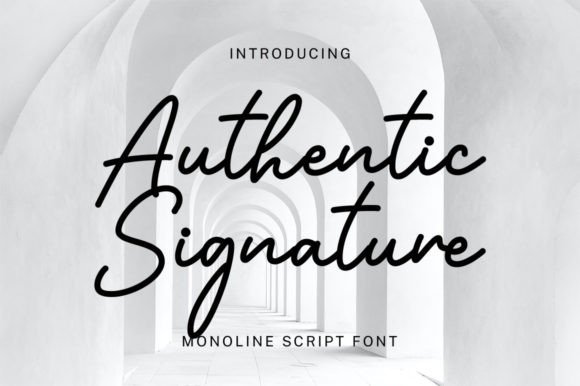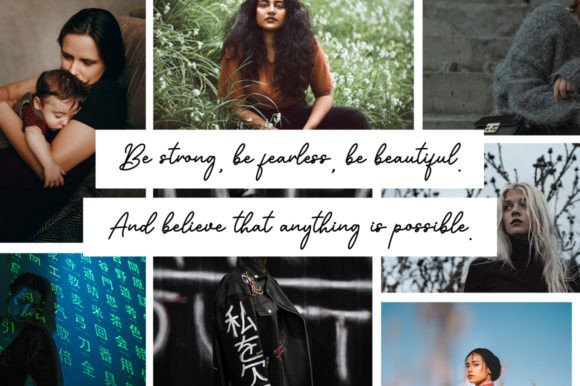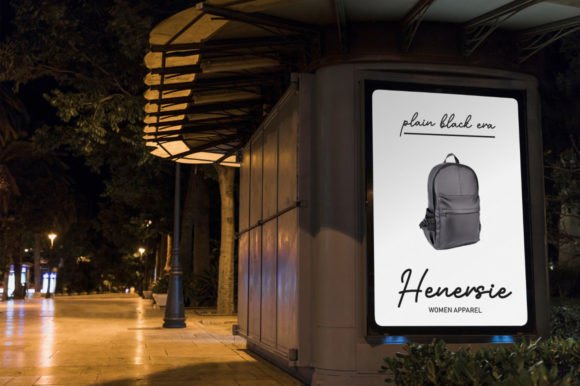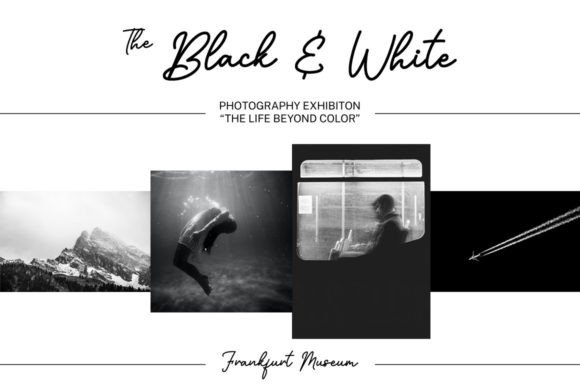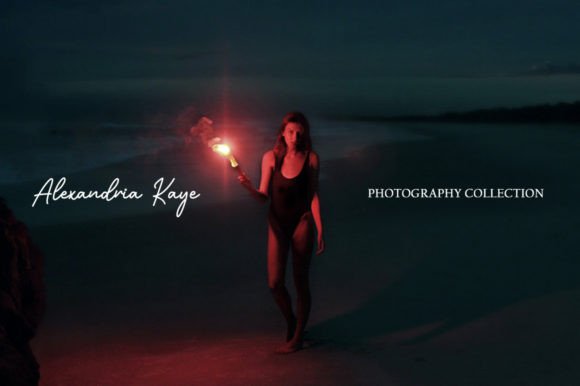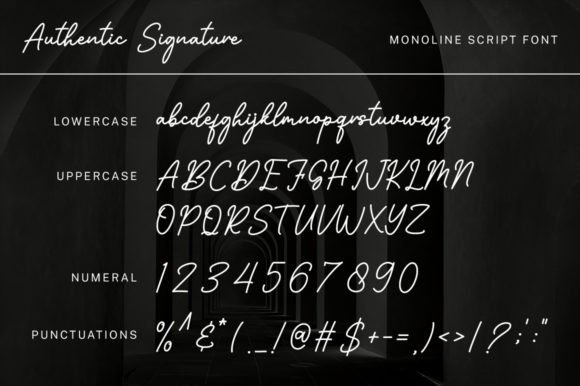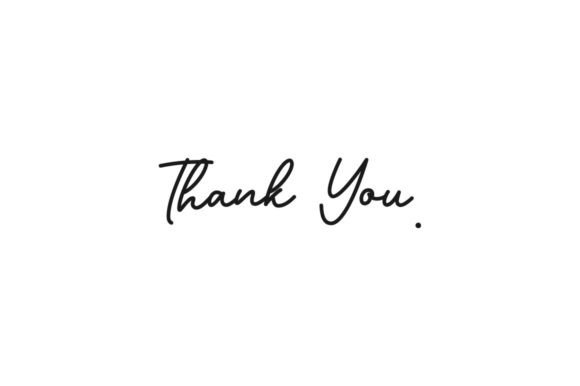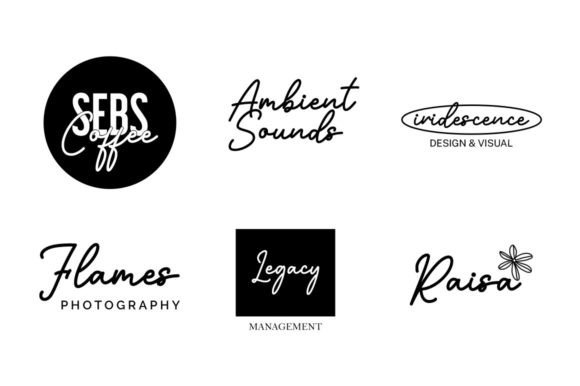
Authentic Signature Font
About Authentic Signature Font
“Authentic Signature” is an elegant handwritten font that brings a sense of grace and charm to your creative projects. With its dainty and joyful style, this font is an ideal choice for writing wedding invitations, crafting heartfelt cards, or adding a romantic and personalized touch to any design that calls for it.
The charm of “Authentic Signature” lies in its elegant and handwritten script. Its delicate letterforms and flowing lines create a visually captivating and refined experience, making it the perfect choice for projects that aim to convey a sense of romance and personalization.
One of the standout qualities of “Authentic Signature” is its ability to infuse a romantic and personalized touch into your designs. Whether you’re creating wedding invitations that capture the essence of love, crafting cards that convey heartfelt sentiments, or working on various other creative projects, “Authentic Signature” seamlessly integrates into your creative vision.
This font’s dedication to adding a touch of elegance and personalization sets it apart. Whether you’re working on personal or professional endeavors, “Authentic Signature” brings a sense of romance and joy to your work that resonates with a diverse audience.
In summary, “Authentic Signature” is more than just a font; it’s an elegant and refined creative tool that can elevate your projects. Whether you’re a professional designer or an enthusiast passionate about crafting and design, “Authentic Signature” is here to make your designs come to life with its romantic and personalized script. Embrace the grace and charm of “Authentic Signature,” and watch your creativity flourish with a touch of elegance and joy.